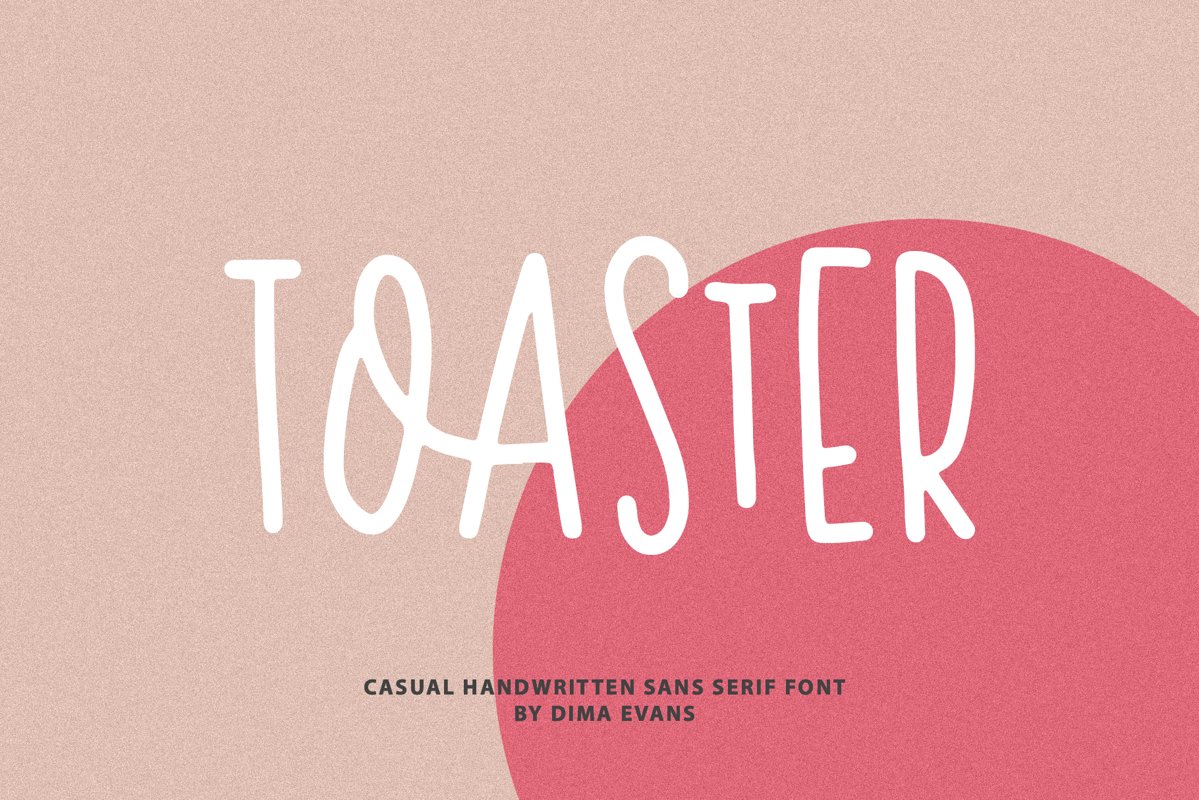
Toaster handwritten font
Toaster
Toaster Sans it is a casual handwritten font with exquisite accents. The font is very cute and contains a huge number of ligatures. It is perfect for branding, wedding invitations and invitation cards and many more